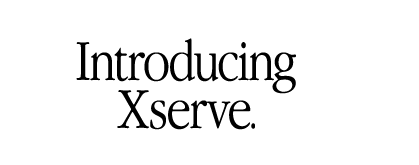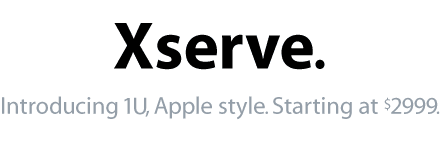
hey peeps, has anyone else noticed that apple seems to be moving away from its garamond typeface with its new products? Both the emac and the new xserve are sporting this new font in their advertising... what is the deal here??? Tim.
Uhhh...the Xserve page looks the same to me. I think (hope) the eMac page is an aberration, since Apple is so easily identified by their typeface.
this is not garamond i pulled this directly off apple's homepage it was the coverpage title. this is definately not apple garamnond.
and the other... and here is for those of you who haven't seen it... the emac title. pulled directly from www.apple.com/education/emac
It seems to be sort of inconsistent at this point...I hope they are just trying it out, and then they'll take all the negative feedback and just stick with Garamond.
I expect apple to use Garamond for corportate and banners and this new font (What is it called, looks like a modified version of Skia) for products. Ensign
another idea i have another idea guys, i don't know what you'll think. it's a bit far-fetched i know. But, could apple be using apple garamond for consumer machines and perhaps moving towards the skia-like typeface for the others. Skia: xserve and emac Apple Garamond: iBook, iMac, PowerBook Just an idea And i do realise that the emac could be classified as consumer, but it is directed towards the education market and not mass-consumer market. Tim.
Re: another idea Since they are mixing the fonts at this point, it looks like they are definitely trying to introduce a new look. I'll bet that in July they'll start using that font even more. I'm a purist, personally. I like Apple Garamond...
me too!!! i also find apple garamond a much nicer font. Apple garamond is so distinctively apple. I really dislike this new font-- it looks much tackier than apple's garamond. Tim
C'mon guys. Change is good. Trends and styles change, thats what keeps it interesting. Apple typically has the upper hand when it comes to noticing new and changing styles, and they are usually the trend setters. Give this new font a chance. You may end up liking it. It seems like Apple is just hopping like crazy nowadays, and maybe they are setting up for a nice, fat release MWNY. New font, new style, new G5? Yikes, I pulled that last line outta my ass......
I do not know but, the PB G4 looks like a PC and the new fonts too. May be Apple is trying to experiment a bit with a PC feeling, I mean, that would work to capture more people from the PC world. And actually make sense. Apple designs have been radical these years, may be the future look is gonna be a very nice, fancy PC look a like or lets call it "more corporative".
To me Apple Garamand is almost as much an icon as the Apple Logo. Apple with out Garamand isn't Apple. But the fact that their mixing up the fonts is interesting. I'd love to see where they go with a redesign of their website.
Sometimes you need to use a serif font, like Garamond, sometimes, you want the look of a sans-serif font, like the one you are talking about. Having a favorite font face for both styles makes sense to me. Read "the mac is not a typewriter" not that I have, but it is supposedly excellent.
i love apple garamond, i'll be so unhappy if they abandon it... they changed their logo, i'm afraid they'll change their font. i don't mind them using it on other products, like they are now, but none of their equipment would look right with a different font on it... pnw
What I think about the Apple Garamond font is that it would be suitable for an excellent-appearing aqua "X". As for this other newer font, I would rather see it on some sort of non-Apple product advertizing. I like the new font, but I do not see it as an Apple font. This may or may not be temporary. __________________ Any time is a great time for iPod.
Should Apple decide to dump Garamond in favor of this Myraid font i'll be first to print up the 2600 Style "Free Garamond" stickers.
Ok, that is it. We are all really friggin geeks. Not just ordinary geeks, we are Ubergeeks . Only Mac fans would discuss, much less notice, the change in fonts used on the company's web page. Either we are sick with no lives, or we are the most fanatic fans of anything to ever grace our big blue rock.
Correct me if i'm wrong - but the first appearance of this Font was Screened on the inside of the G3 blue and white cases (how soon we forget). i sense that apple will stick to Garamond for it's corporate image, and use the new Sans-Serif font (which looks nothing like SKIA, i'd like to point out - i'm positive that it's a variation on Humanist...it's somewhere between Humanist 531 and Humanist 777. evidently i'm missing a font between those two...hahaha. uhh, incomplete thought - right, apple will use the Humanist typeface (which is rather elegant as sans-serifs go, contrairy to your belly-aching) for their model-names. i don't think it's anything more Sinister than that. and i DO believe that apple's changed fonts before...i vaguely recollect an old sans-serif apple logo...perhaps in something like AvantGarde.